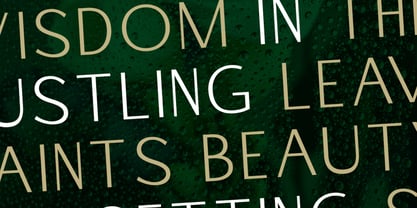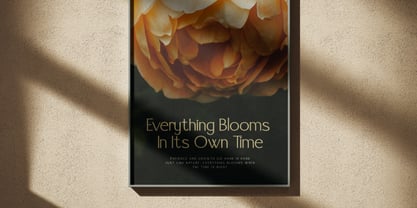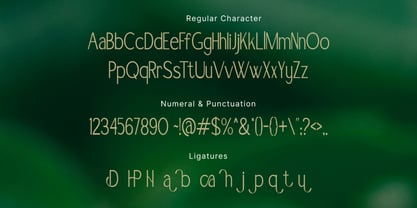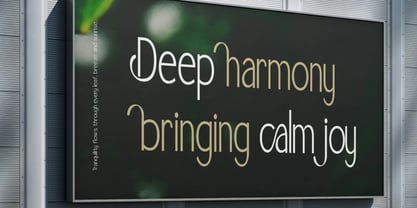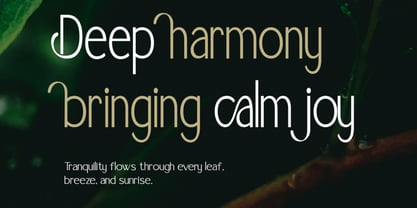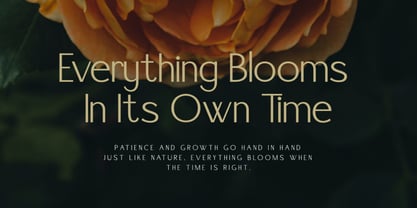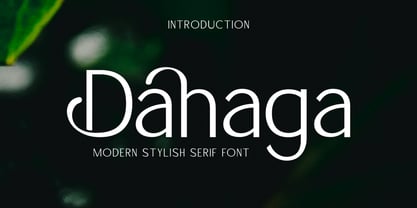
Dahaga
Dahaga is an Modern Stylish Serif Font that strikes a perfect balance between contemporary minimalism and decorative flair. It features a sleek, high-contrast anatomy with unique curved ligatures and flowing terminals that give the typeface an organic, botanical feel. This font includes a comprehensive set of uppercase and lowercase characters, numerals, and punctuation, along with a specialized selection of custom ligatures to enhance visual flow. Dahaga is highly relevant for the high-end lifestyle, wellness, and floral industries. Its elegant and airy structure makes it ideal for magazine layouts, premium skincare packaging, boutique shop signage, and sophisticated wedding stationery. The font is particularly effective for "nature-inspired" marketing campaigns where a sense of patience, growth, and organic beauty needs to be communicated through typography.